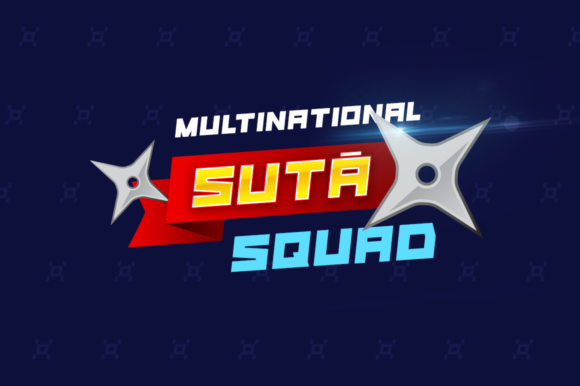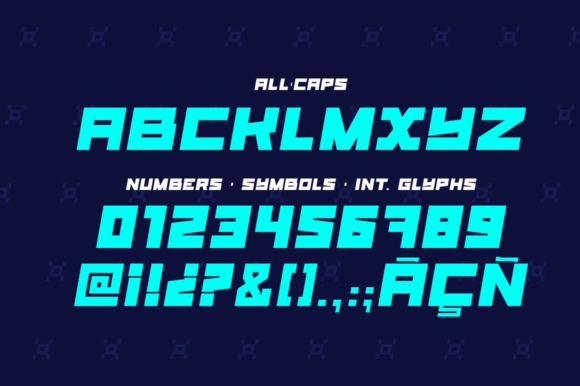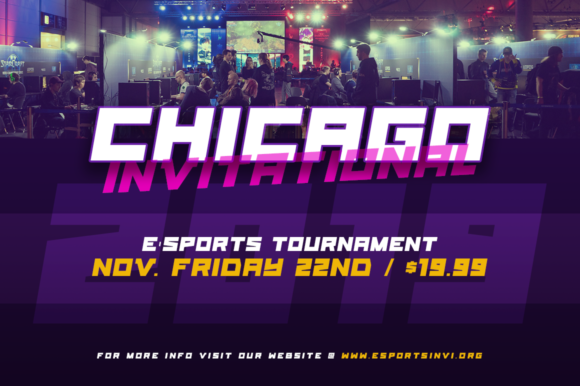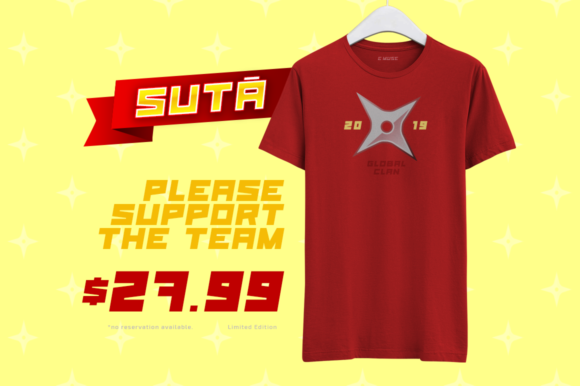
E-Muse Font: The Ultimate Choice for eSports and Dynamic Designs
In the world of digital design, fonts play a crucial role in conveying the message and tone of a project. For eSports related projects, a strong and bold font is essential to capture the dynamic and smart feel of the industry. This is where E-Muse Font comes into play. Designed specifically for eSports and related projects, E-Muse Font is a game-changer for designers and crafters looking to elevate their designs.
What is E-Muse Font?
E-Muse Font is a strong and bold font, carefully crafted to meet the demands of eSports related projects. Its unique design elements make it an ideal choice for projects that require a dynamic and smart feel. The font’s sleek and modern aesthetic is perfect for creating stunning visuals that capture the attention of gamers and non-gamers alike.
Key Features of E-Muse Font
- Strong and Bold Design: E-Muse Font boasts a robust and bold design that commands attention and exudes confidence.
- Dynamic and Smart Feel: The font’s unique design elements give it a dynamic and smart feel, perfect for eSports related projects.
- High Versatility: E-Muse Font is highly versatile and can be used for a wide range of design projects, from logos and branding to posters and social media graphics.
- Easily Readable: Despite its bold design, E-Muse Font is easily readable, making it perfect for use in digital and print materials.
Who Can Benefit from E-Muse Font?
E-Muse Font is an excellent choice for a variety of designers and crafters, including:
- eSports Designers: Designers working on eSports related projects, such as team logos, jerseys, and marketing materials, will find E-Muse Font to be an excellent choice.
- Graphic Designers: Graphic designers looking for a strong and bold font to add a dynamic touch to their designs will love E-Muse Font.
- Branding and Identity Designers: Designers working on branding and identity projects will appreciate E-Muse Font’s unique design elements and high versatility.
- Crafters and Makers: Crafters and makers looking to add a professional touch to their DIY projects will find E-Muse Font to be an excellent choice.
How to Use E-Muse Font in Your Designs
Using E-Muse Font in your designs is easy and straightforward. Here are a few tips to get you started:
- Pair it with Other Fonts: E-Muse Font pairs well with other fonts, so feel free to experiment with different combinations to find the perfect look for your design.
- Use it for Headlines and Titles: E-Muse Font is perfect for use in headlines and titles, where its bold design can make a big impact.
- Experiment with Colors: E-Muse Font looks great in a variety of colors, so don’t be afraid to experiment and find the perfect color scheme for your design.
E-Muse Font is a powerful and versatile font that is perfect for eSports related projects and designs that require a dynamic and smart feel. Its strong and bold design, high readability, and ease of use make it an excellent choice for designers and crafters of all levels. Whether you’re working on a professional design project or a DIY craft, E-Muse Font is sure to elevate your designs and help you achieve your creative goals.